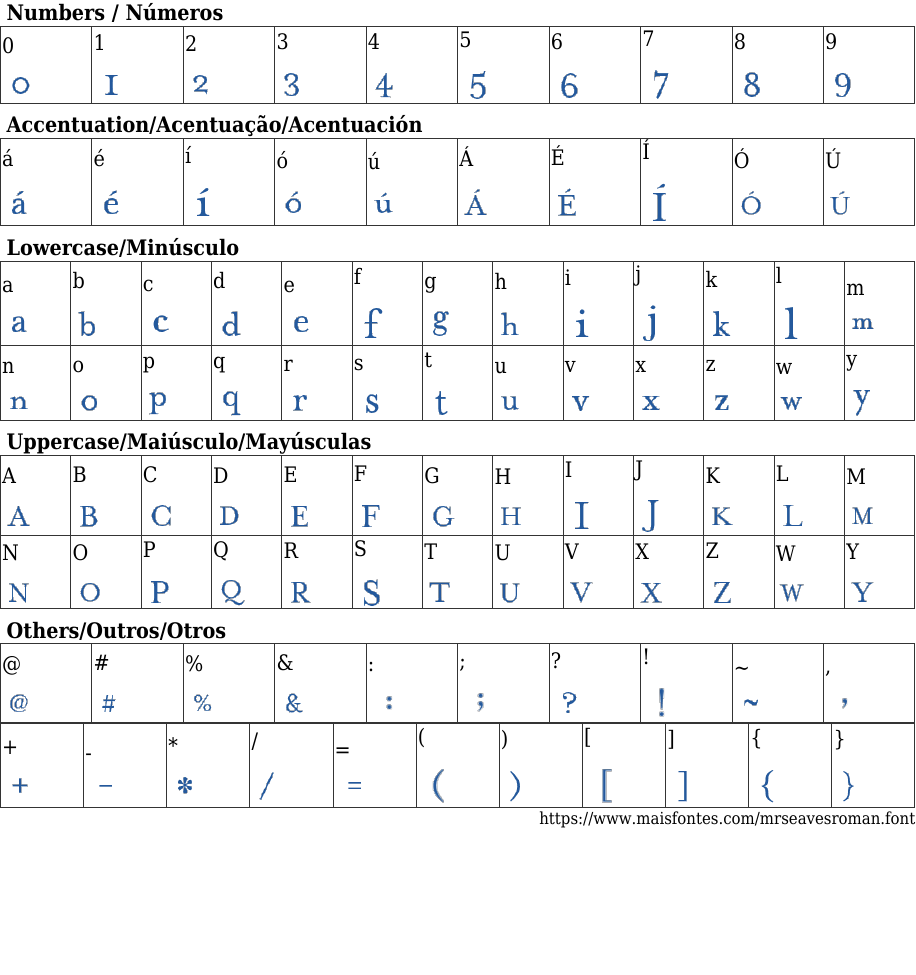
Mrs Eaves Roman Font Free . You can also visit the author website,. Web explore mrs eaves designed by zuzana licko at adobe fonts.
Web explore mrs eaves designed by zuzana licko at adobe fonts. Web discover the free mrs eaves roman font at free font download ! Web zuzana licko redesigned the font with the original face in 1996.
You can also visit the author website,. The mrs eaves ot roman font was designed by zuzana licko. Web zuzana licko redesigned the font with the original face in 1996. You can also visit the author website,.
Mrs Eaves Roman Font Free - Select the font, type, and. Created by zuzana licko, this. It’s amazing with the contrast between free thin and thick strokes to download mrs. Web mrs eaves ot roman is the perfect font for all your fun designs. The mrs eaves ot roman font was designed by zuzana licko.
Mrs Eaves Roman Font Free - Select the font, type, and. Web discover the free mrs eaves roman font at free font download ! A great choice for highlighting your design elements. Created by zuzana licko, this. A serif typeface with 9 styles, available from adobe fonts for sync and web.
Mrs Eaves Roman Font Free - A serif typeface with 9 styles, available from adobe fonts for sync and web. Web mrs eaves ot roman is the perfect font for all your fun designs. Web websites using the typeface mrs eaves with personal recommendations for similar web fonts, suggested font pairings and the closest free alternative. The mrs eaves ot roman font was designed by zuzana.
Mrs Eaves Roman Font Free - Web mrs eaves ot roman is the perfect font for all your fun designs. It’s amazing with the contrast between free thin and thick strokes to download mrs. Web zuzana licko redesigned the font with the original face in 1996. Web websites using the typeface mrs eaves with personal recommendations for similar web fonts, suggested font pairings and the closest.
Mrs Eaves Roman Font Free - Web explore mrs eaves designed by zuzana licko at adobe fonts. Installable on pc, mac, linux, ios, and android platforms. The mrs eaves ot roman font was designed by zuzana licko. Web mrs eaves font generator. You can also visit the author website,.
Mrs Eaves Roman Font Free - Web mrs eaves roman font free download. Select the font, type, and. Web mrs eaves font generator. The mrs eaves ot roman font was designed by zuzana licko. A great choice for highlighting your design elements.
Mrs Eaves Roman Font Free - You can also visit the author website,. Created by zuzana licko, this. Web zuzana licko redesigned the font with the original face in 1996. A serif typeface with 9 styles, available from adobe fonts for sync and web. Web websites using the typeface mrs eaves with personal recommendations for similar web fonts, suggested font pairings and the closest free alternative.